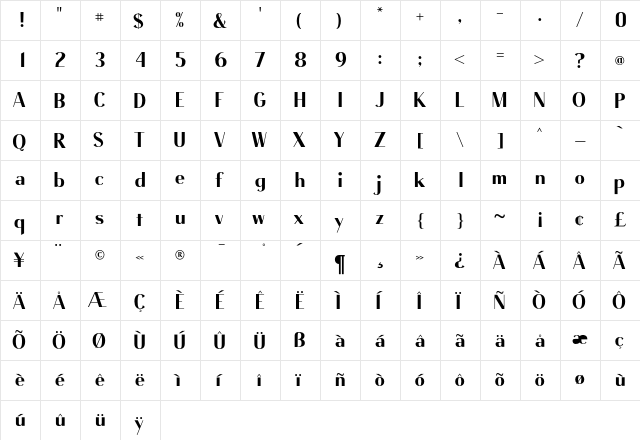
Durak Regular
Design Context for Durak Typeface
Durak is a composed and adaptable typeface that performs quietly and consistently across a wide range of design contexts.